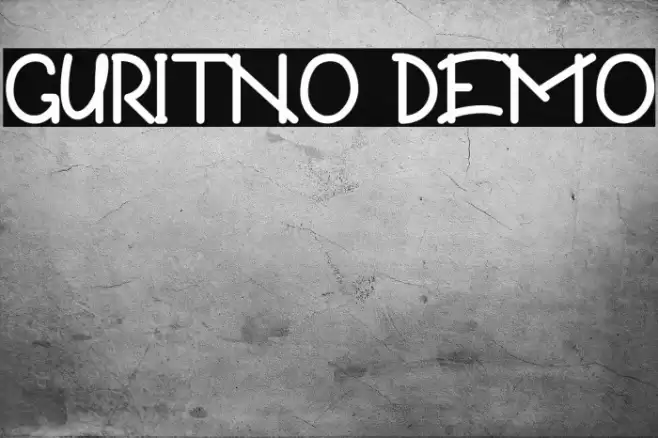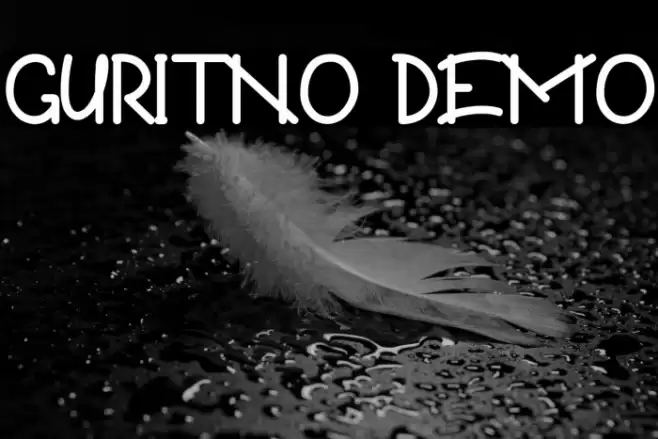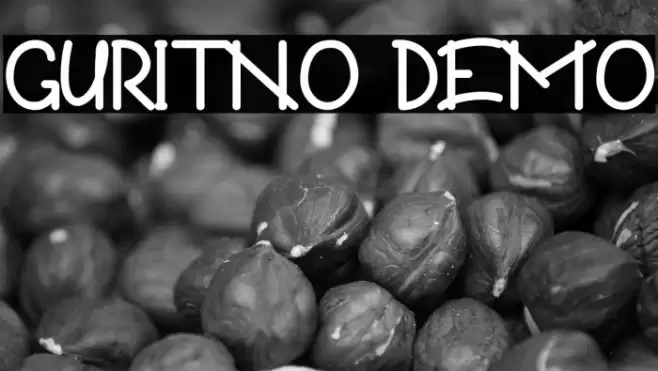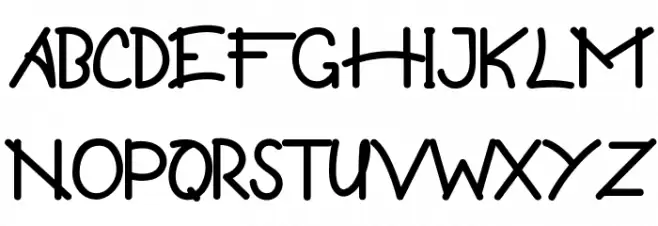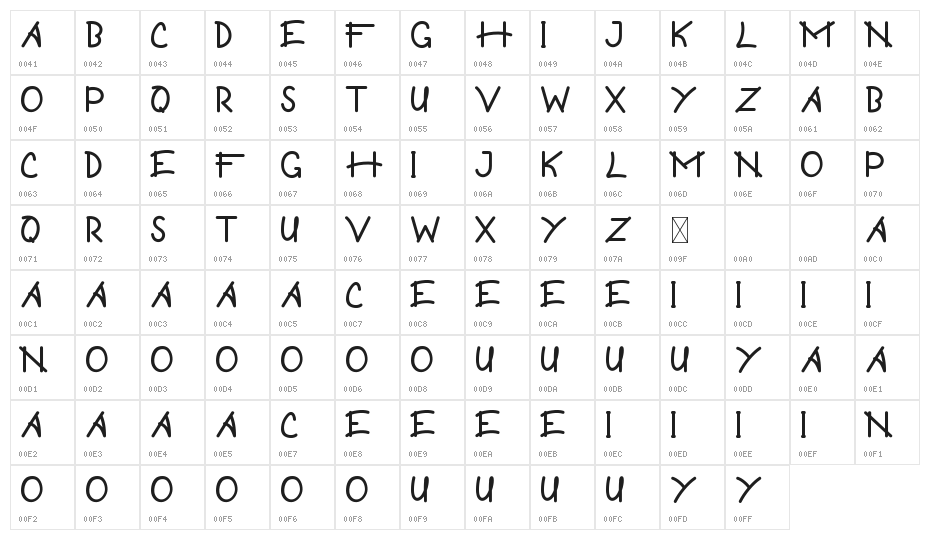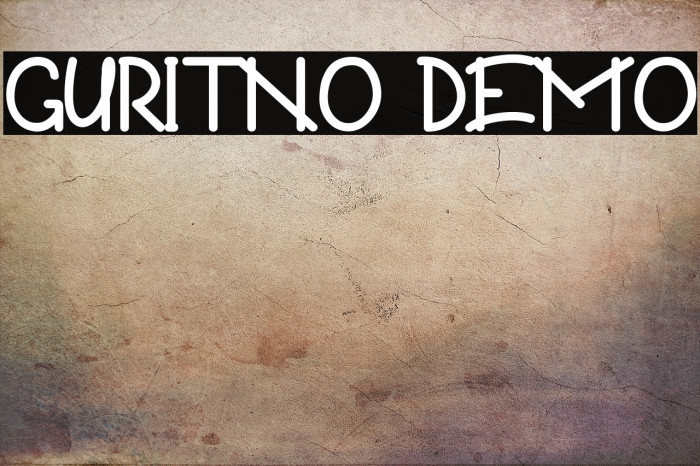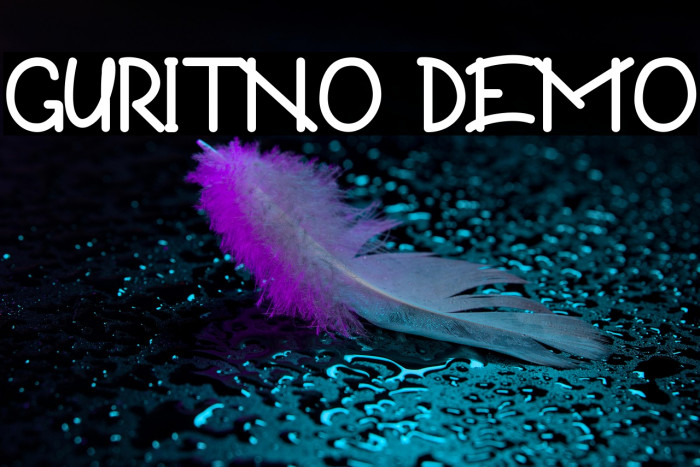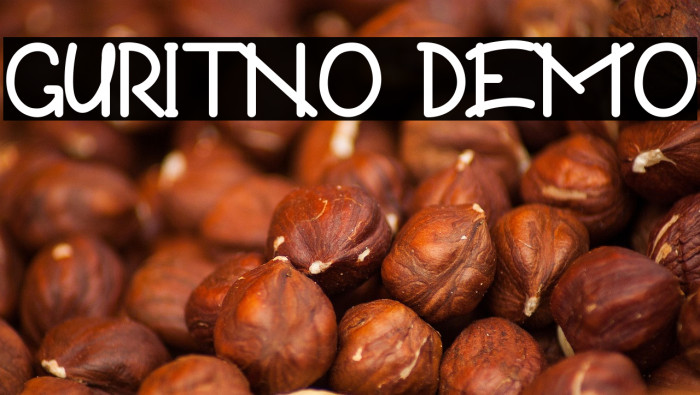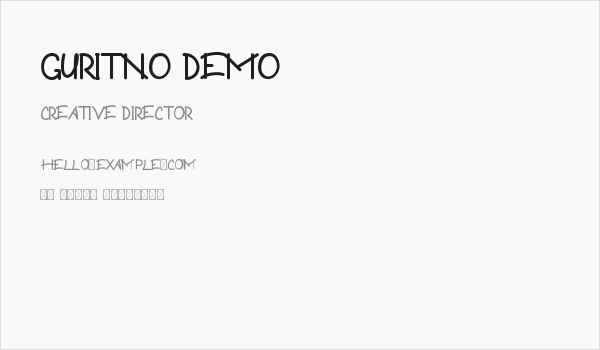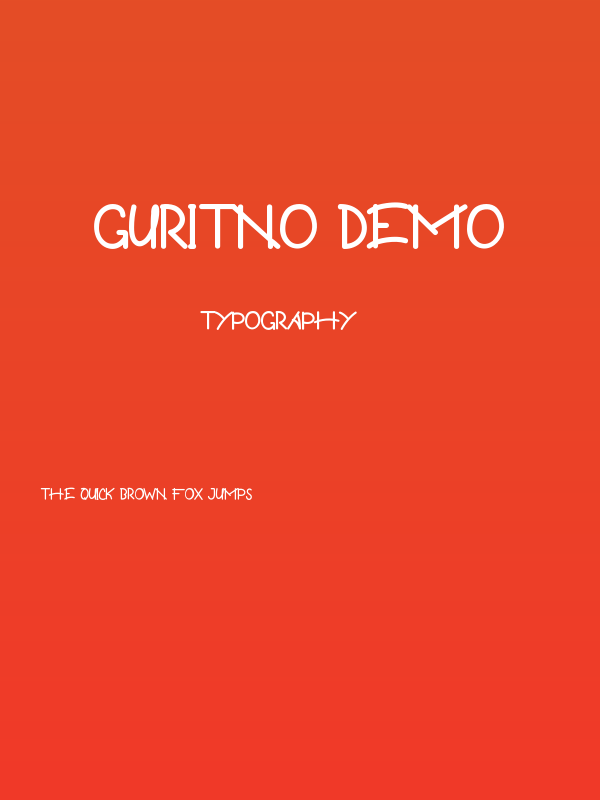
Guritno Demo Font
Guritno Demo Description
This font features a unique and playful design with a handwritten style. The characters are crafted with a consistent stroke width, giving it a uniform appearance. The letters have a whimsical flair, with curved lines and occasional loops that add to its charm. The uppercase and lowercase letters maintain a cohesive look, while the numbers and special characters blend seamlessly into the overall design. This font is perfect for projects that require a touch of creativity and personality, making it ideal for artistic and informal applications.
A playful, handwritten font with consistent stroke width and whimsical character design from Regular fonts.
- Proposed Projects: Ideal for greeting cards, children's books, creative posters, and informal branding.
- Overall Style: Playful
- Use Case: Logos, Headlines, Creative projects